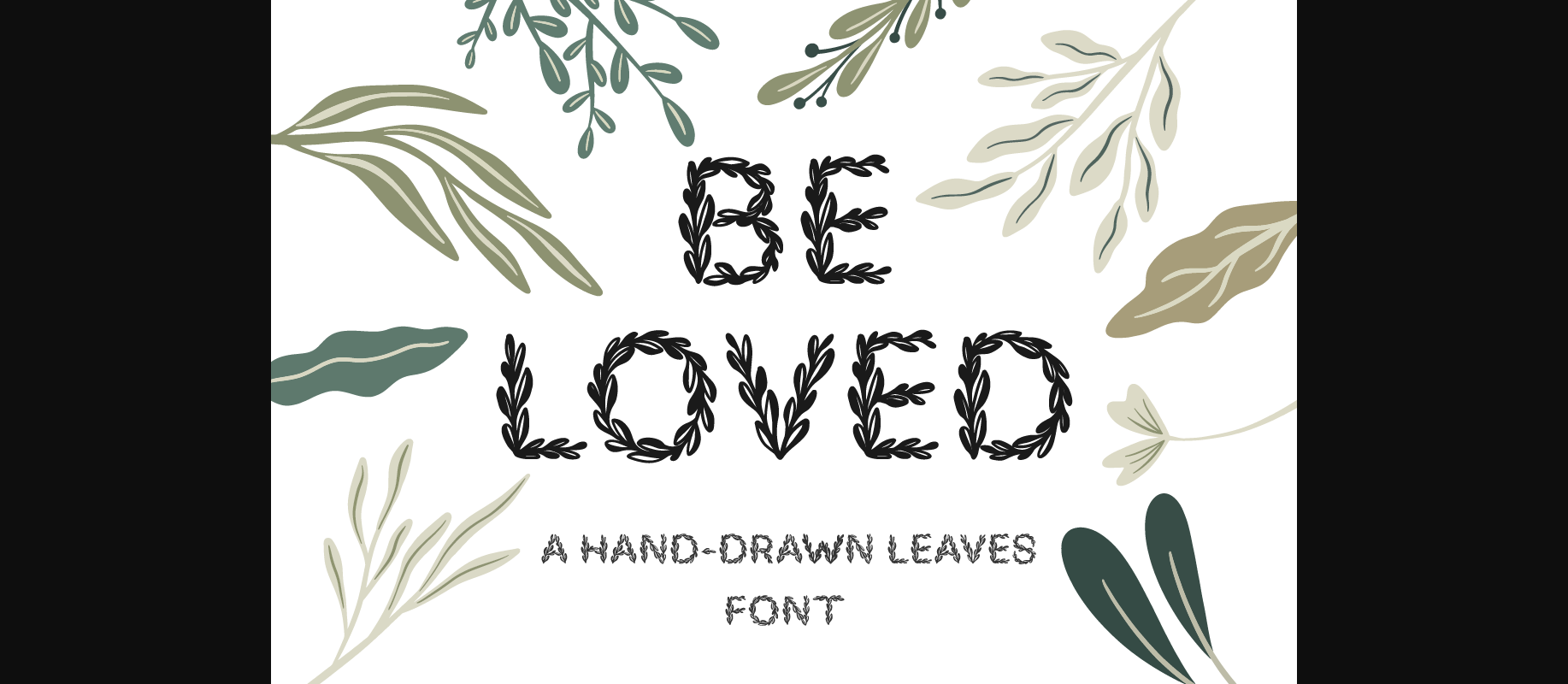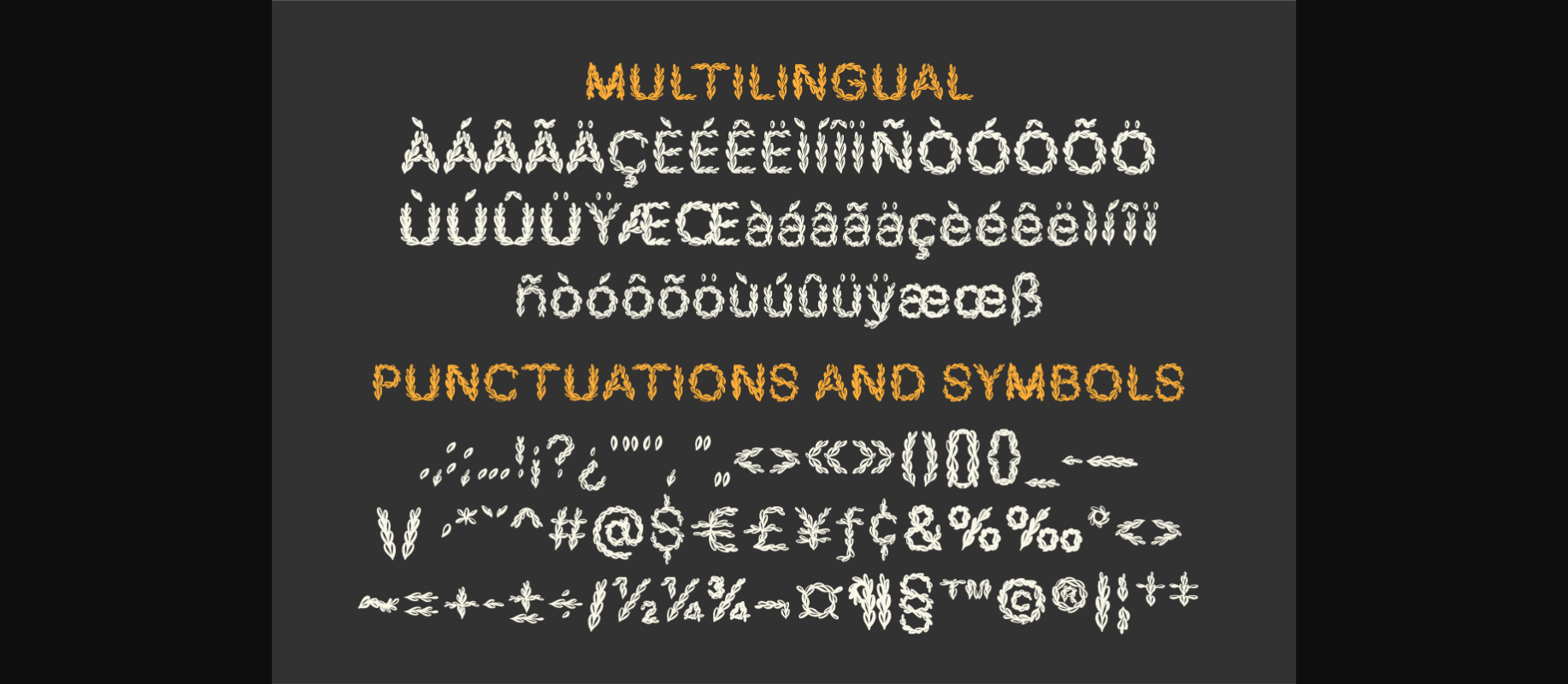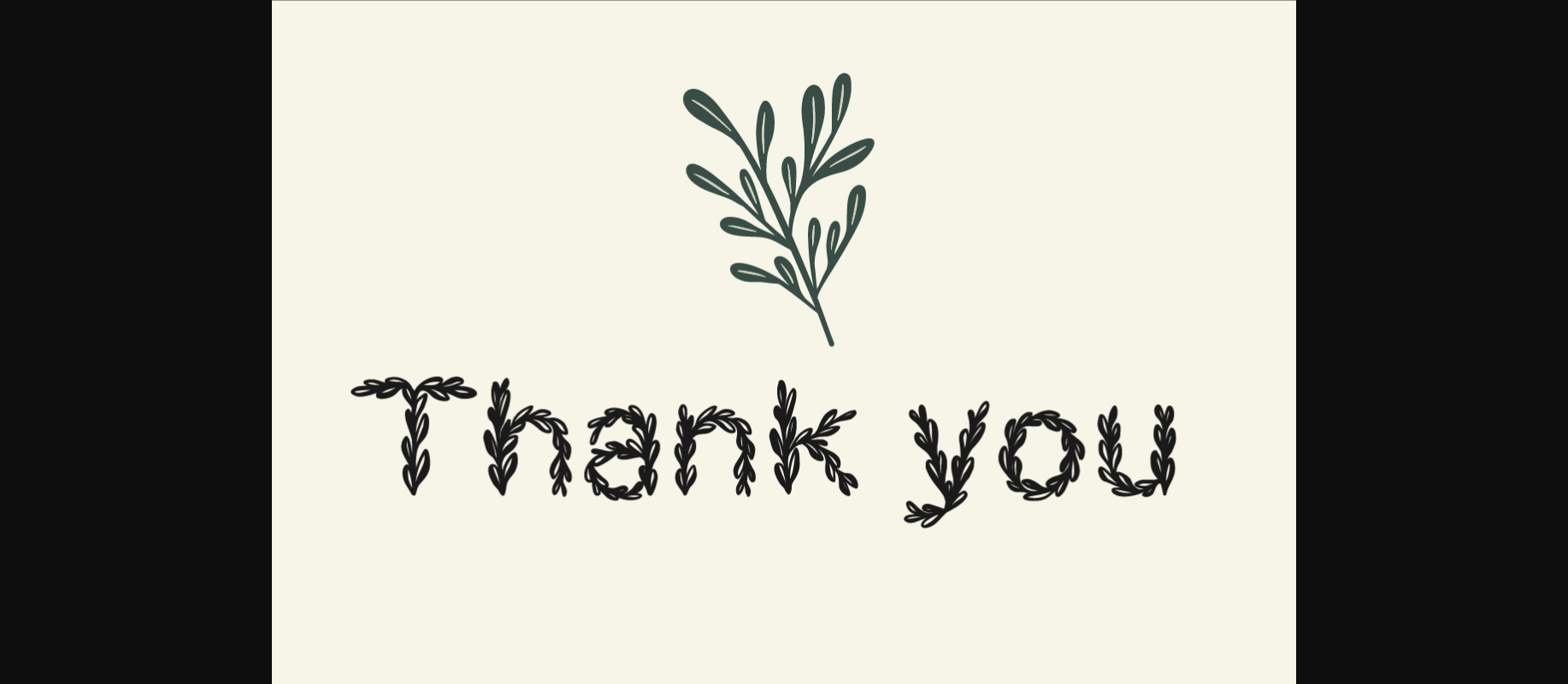
About Beloved Font
BELOVED is a hand-drawn font with leaves decoration. Perfect for wedding projects, shirts, wedding designs, invitation cards, mugs, stickers, playful quotes, posters, logos, greeting cards, packaging, decorating illustrations and so much more!